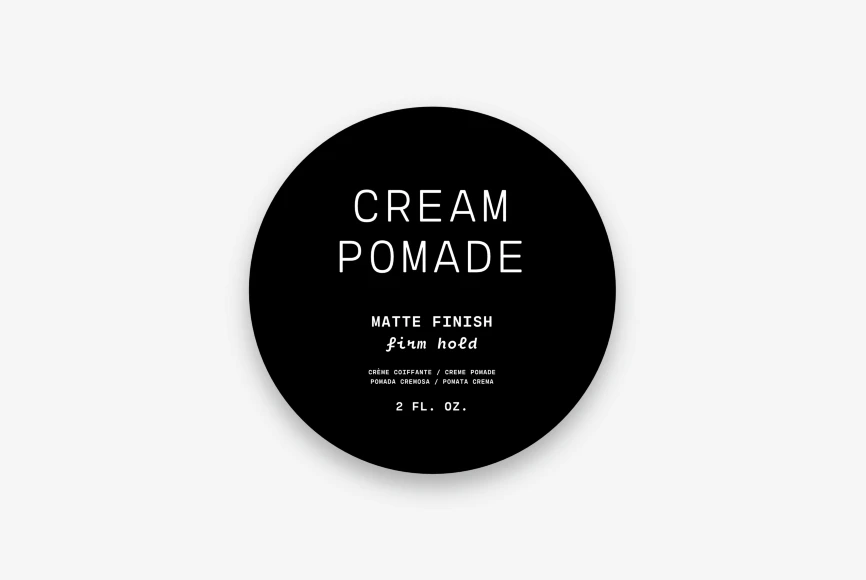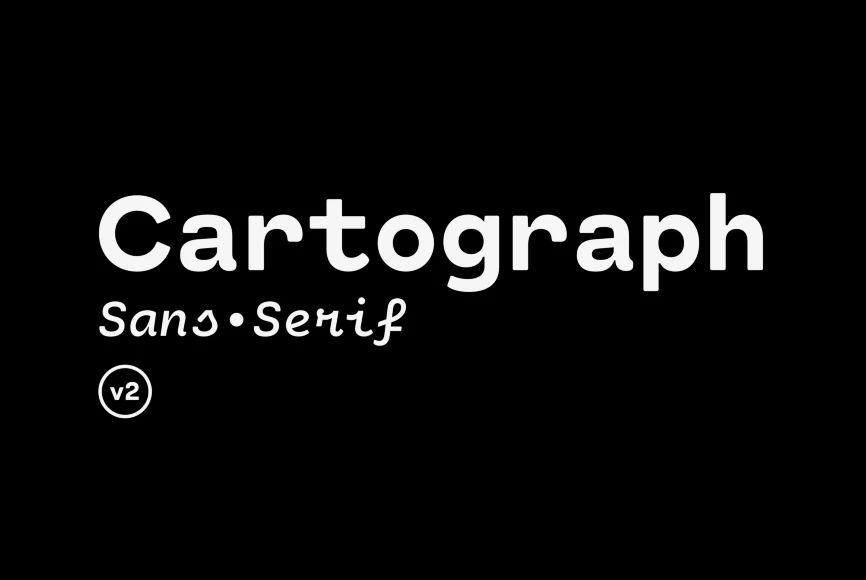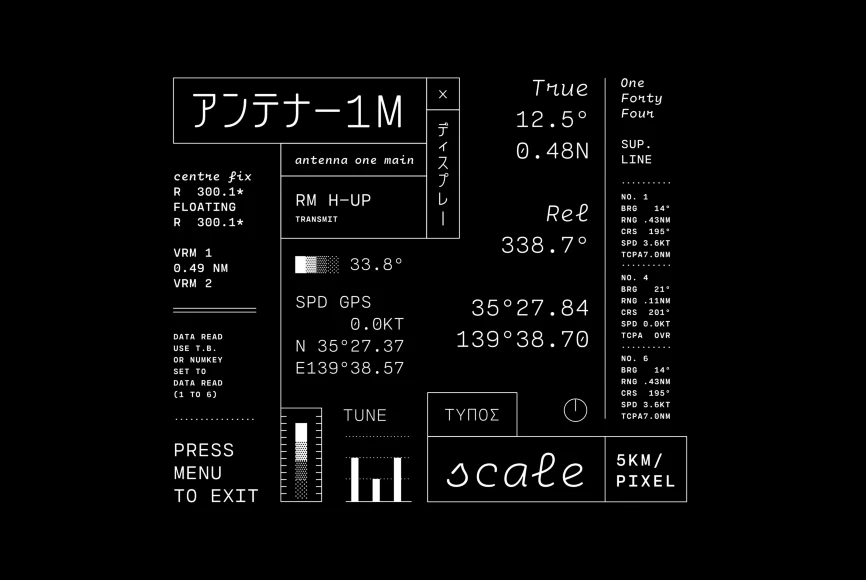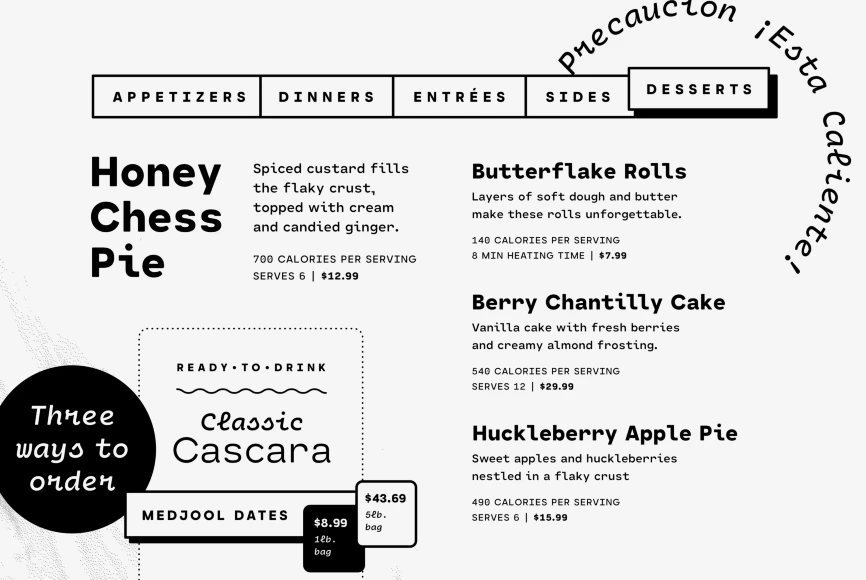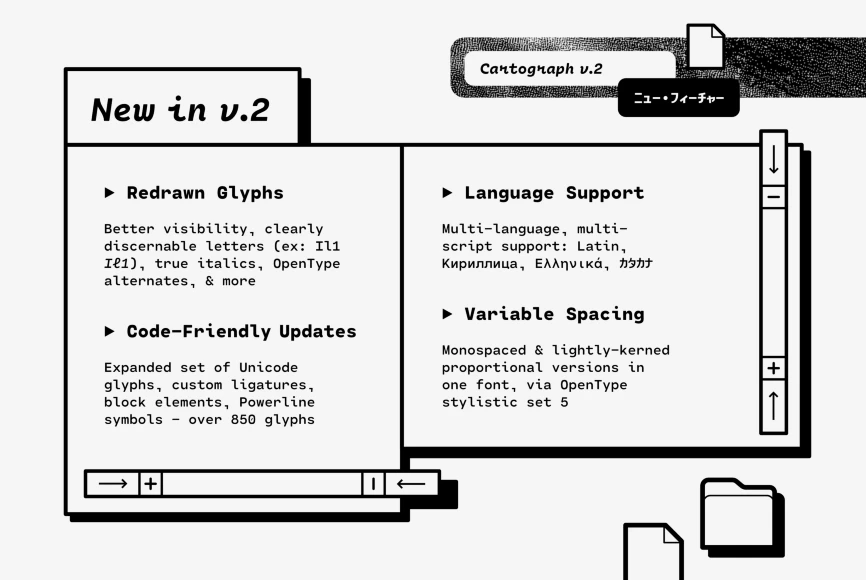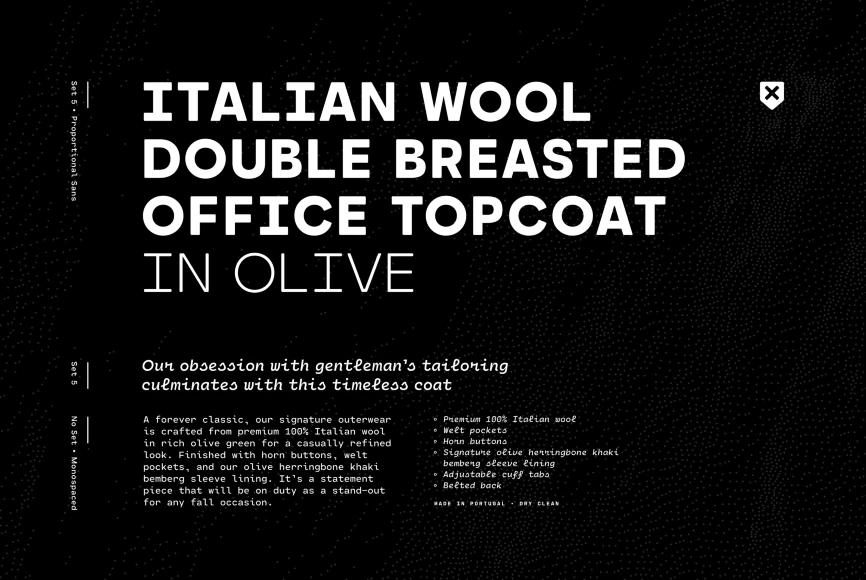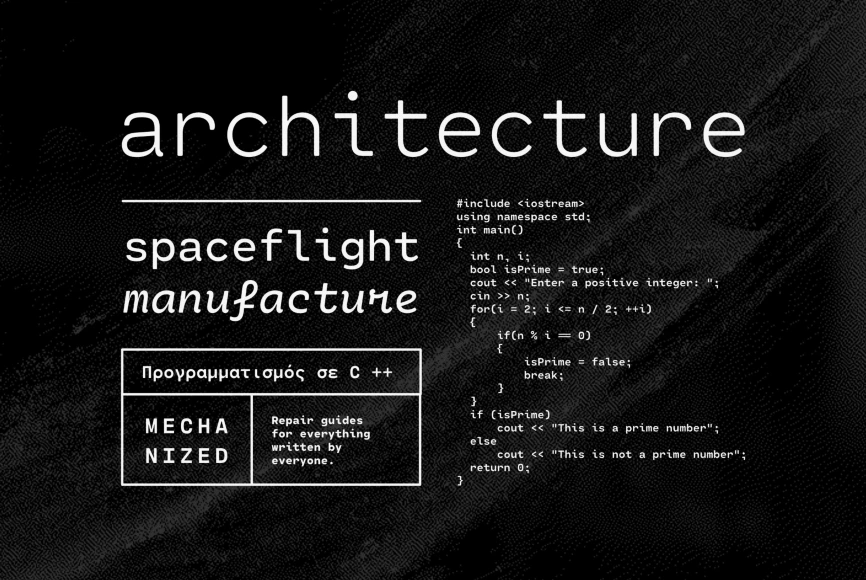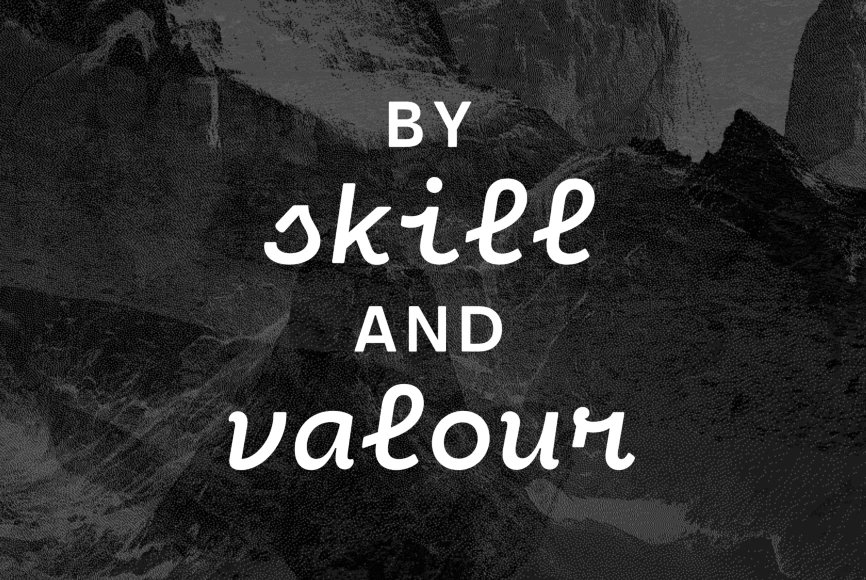
Cartograph
By Connary Fagen
A monospaced typeface with character and warmth, Cartograph© CF is a handsome font family featuring a lush, cursive italic, code-friendly ligatures, and a proportional set accessible via OpenType. A tribute to the utilitarian beauty of terminals and typewriters, Cartograph excels in both code and prose.